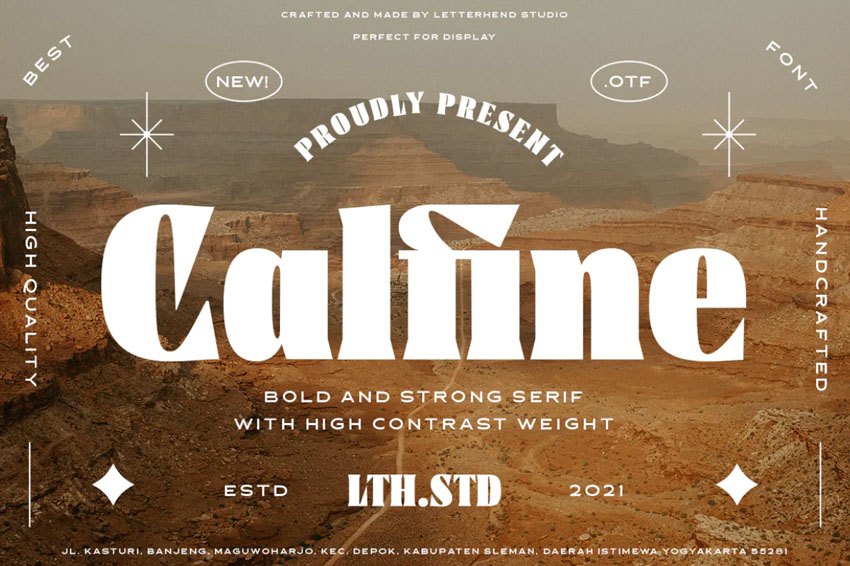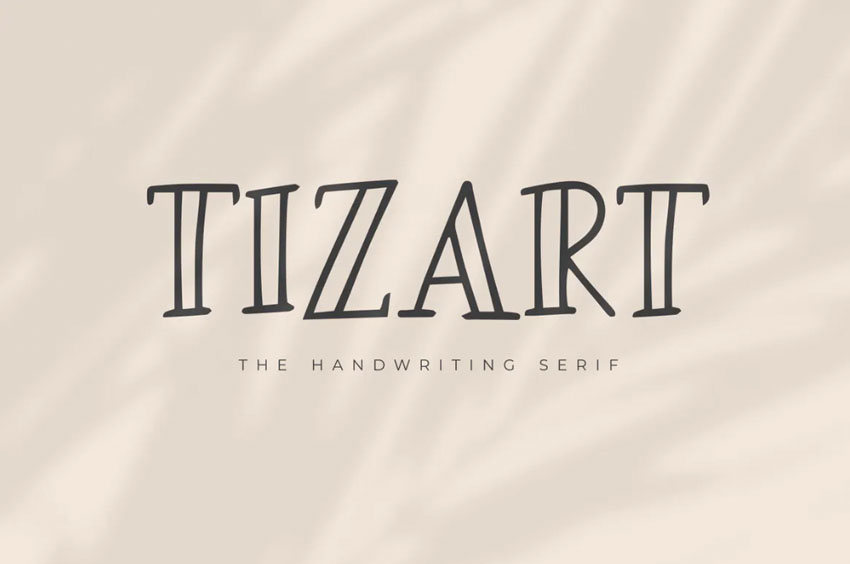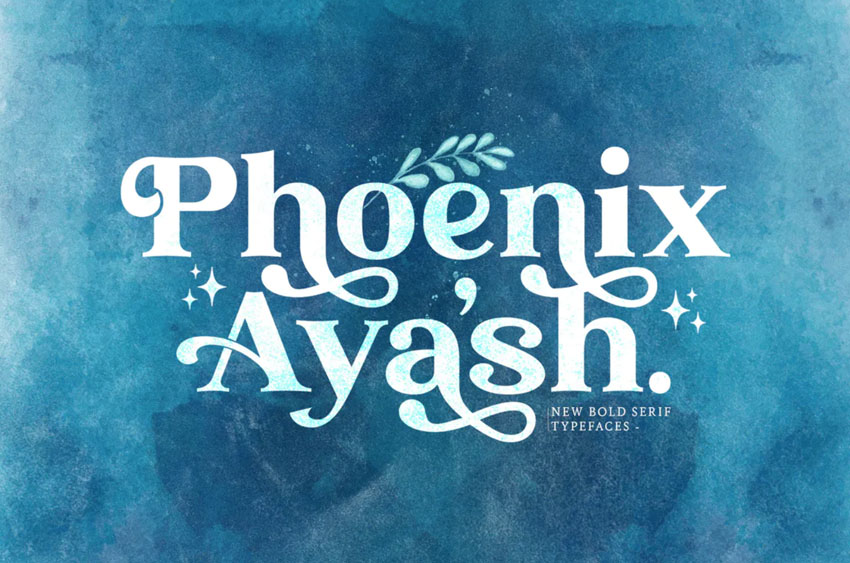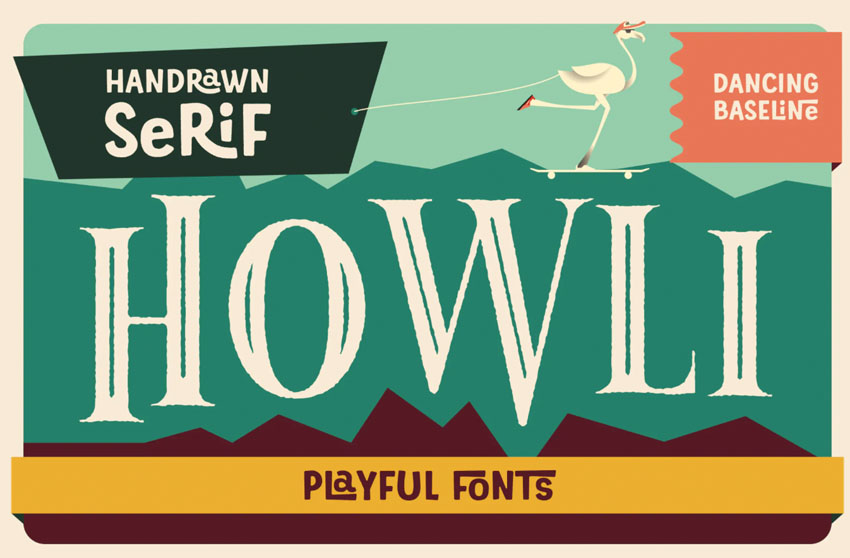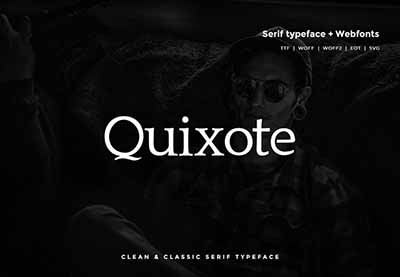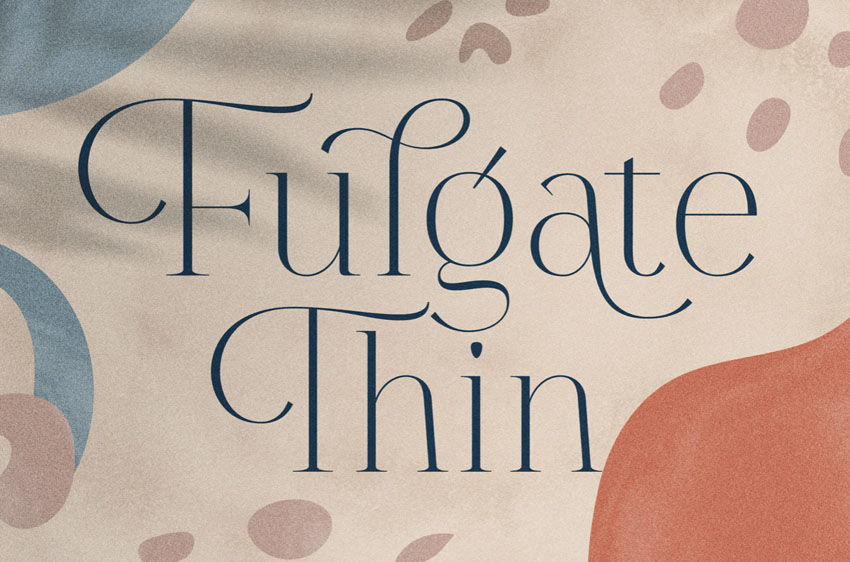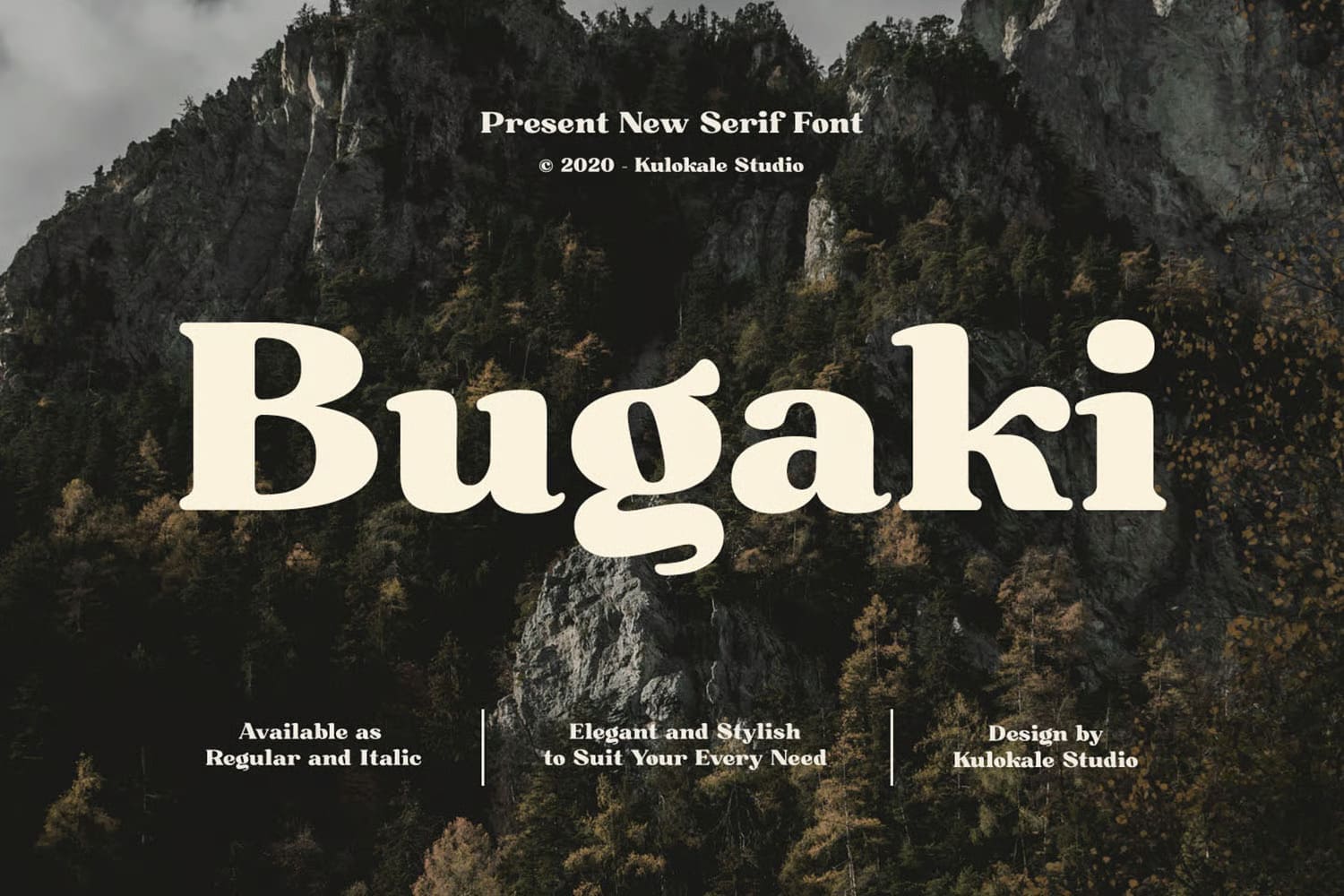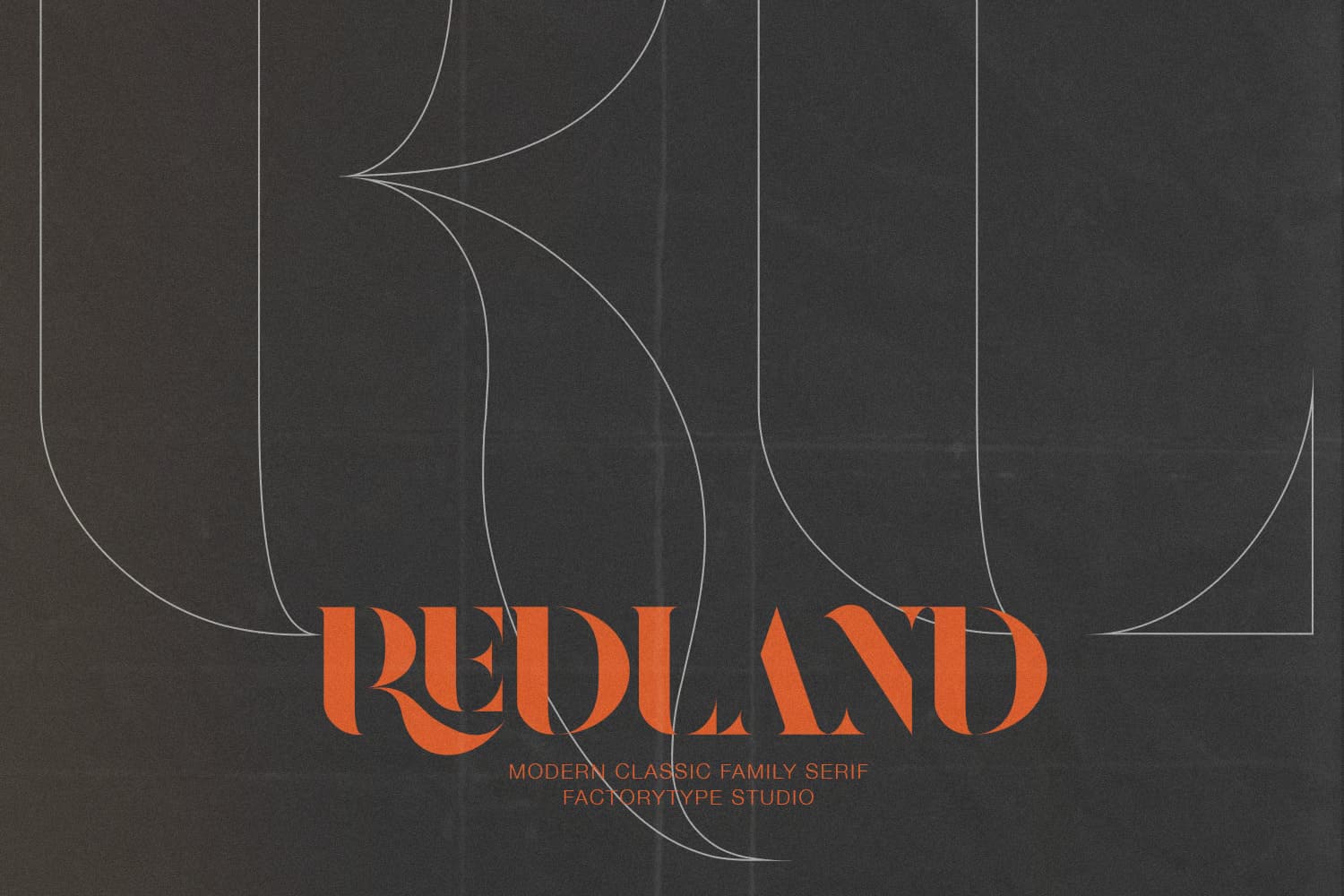
TL;DR: Serif fonts are typefaces that feature small decorative strokes or “serifs” at the ends of letters, giving text a more classic, readable look. The main types of serif fonts include Old Style, Transitional, Didone, and Slab Serif, each with distinct structures and moods. Modern design also features hybrid serifs that mix traditional elegance with contemporary flair.
Serif fonts come in many shapes and personalities, from elegant Didones to sturdy Slab Serifs, and knowing the difference can transform how you approach typography. In this tutorial, we’ll break down the main types of serif typefaces, explore what makes each unique, and show real-world examples of how designers use them to shape mood and readability.
You’ll also discover how to spot the subtle details, such as bracketed curves or angular terminals that define each style, plus where to find and download modern serif fonts to bring fresh character to your next design project.
What is a serif font?
So, what exactly is a serif font? Let’s start with the basics. A serif refers to the small decorative line or stroke that extends from the ends of a letter’s main strokes. These subtle details give typefaces a more traditional, structured, and readable feel, especially in print.
For example, Times New Roman is a serif typeface. Notice how each letter features small finishing strokes at its edges; that’s the serif in action. In contrast, Helvetica is a sans-serif typeface, meaning “without serif.” Its clean, straight letter endings give it a more modern, minimal look.
When comparing the two, serif fonts often feel classic, elegant, and literary, while sans serif fonts lean modern, sleek, and digital-friendly. Both have their place, but understanding what makes a serif font distinct helps you choose the right tone and texture for your design.
But not all serif fonts look the same. They come in a wide range of shapes, weights, and personalities, from bold slab serifs with strong geometric forms to delicate hairline serifs that feel refined and elegant. You’ll even find handwritten serif styles that blend calligraphic charm with classic structure.
Still, the basic distinction remains one of the most universal ways to classify type: a font is usually either serif or sans serif. Occasionally, you’ll see script fonts described as a “third category,” but even then, they often carry characteristics that fit into the serif or sans serif families. Understanding this simple division is the first step to navigating the rich world of typography.
What is type classification?
So, what are the different types of serif fonts? To answer that, we first need to understand type classification, a system for grouping fonts based on their shared visual characteristics and historical origins.
These classifications help designers recognize subtle differences in letterform shapes, stroke contrast, and proportions. While many of today’s fonts blur the lines between categories, most still draw inspiration from traditional type design eras, each with its own personality and purpose.
Type classification isn’t just academic; it’s practical. Knowing whether a font belongs to the Old Style, Transitional, or Modern family, for example, can help you choose the right tone for your project, whether you’re designing a classic print layout or a clean digital interface.
Why does it matter?
Why learn about the different types of serif typefaces? Isn’t choosing a font just about what looks good? Well, as any seasoned designer will tell you, it’s a bit more nuanced than that.
Understanding type classification and characteristics gives you the tools to make intentional design choices. When you can recognize a font’s structure, its contrast, proportions, and details, you’re not guessing anymore. You’re selecting type with purpose.
Knowing how to identify a font’s traits also helps you choose the right typeface faster. Instead of scrolling endlessly or relying solely on instinct, you can start with a clear visual direction that supports your concept and brand tone.
Typography isn’t just decoration; it’s communication. The fonts you choose set mood, tell stories, and shape perception. Recognizing those subtle differences is what transforms a good layout into one that feels cohesive, expressive, and uniquely yours.
The different types of serif fonts
Serif fonts aren’t all built the same. In fact, designers often group them into four main categories: Old Style, Transitional, Didone, and Slab Serif. Each one carries its own history, structure, and personality.
Serif type
Description
Example
| Old Style | These are the classics. Old-style serif fonts feature gentle curves, moderate contrast between thick and thin strokes, and a warm, hand-drawn feel rooted in Renaissance calligraphy. | Garamond or Bembo |